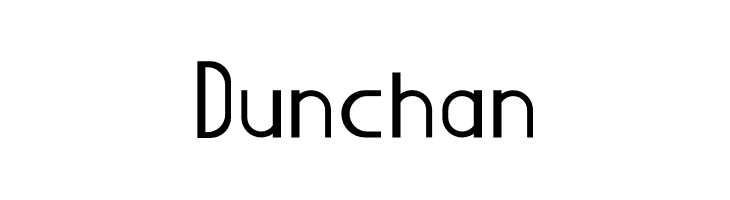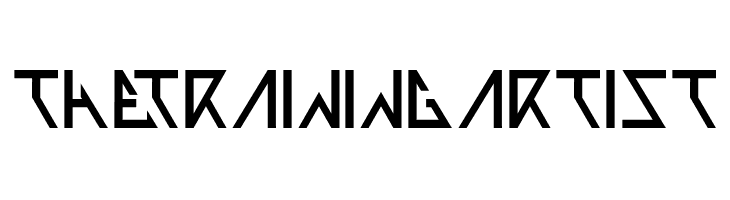
A modern, elegant script font with intricate loops and smooth curves.
A bold serif font with high contrast and elegant serifs.
A playful and quirky font with a modern, whimsical style.
A bold, hollow, decorative font with a playful, three-dimensional style.
A sleek, modern, and slightly italicized font with a light and airy feel.
A bold, angular, and dynamic font with a futuristic and energetic style.
A modern, cursive handwritten font with smooth, connected strokes.
A playful, bold handwritten font with an energetic and informal style.
A flowing, cursive font with elegant loops and swirls.
A modern, geometric font with a linear, dynamic style.